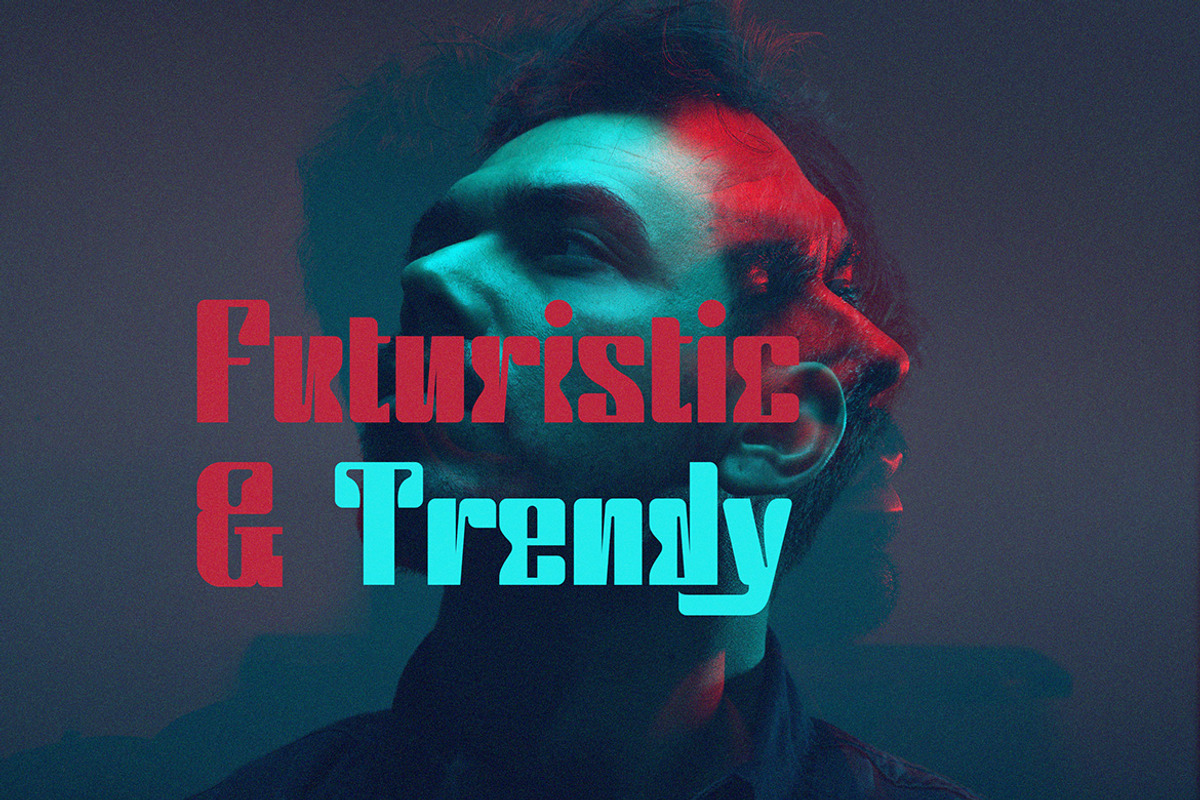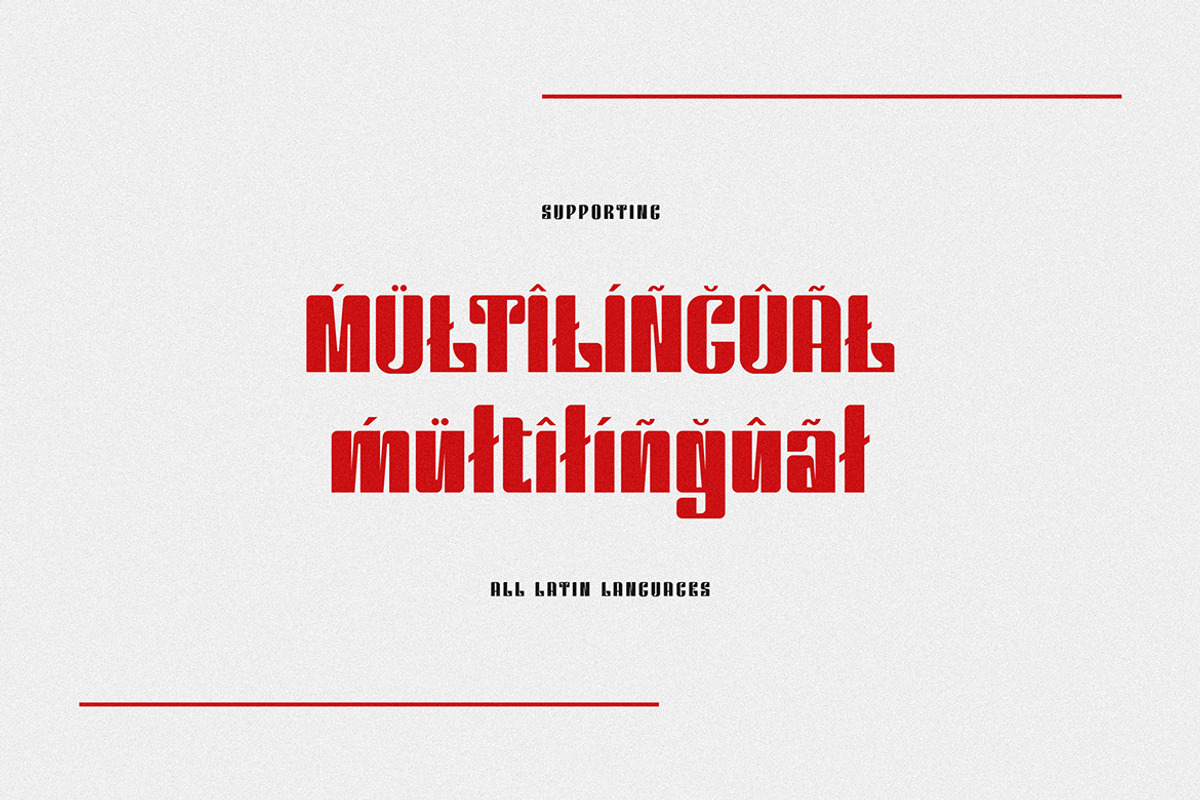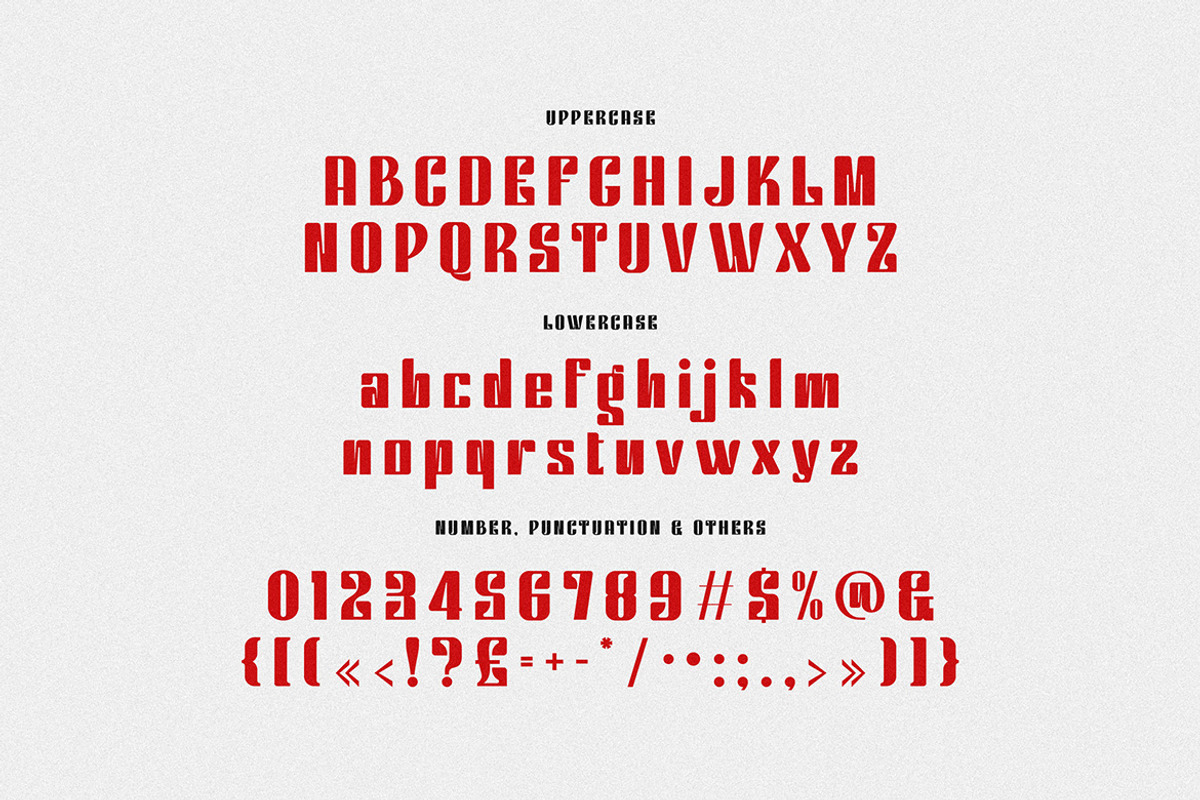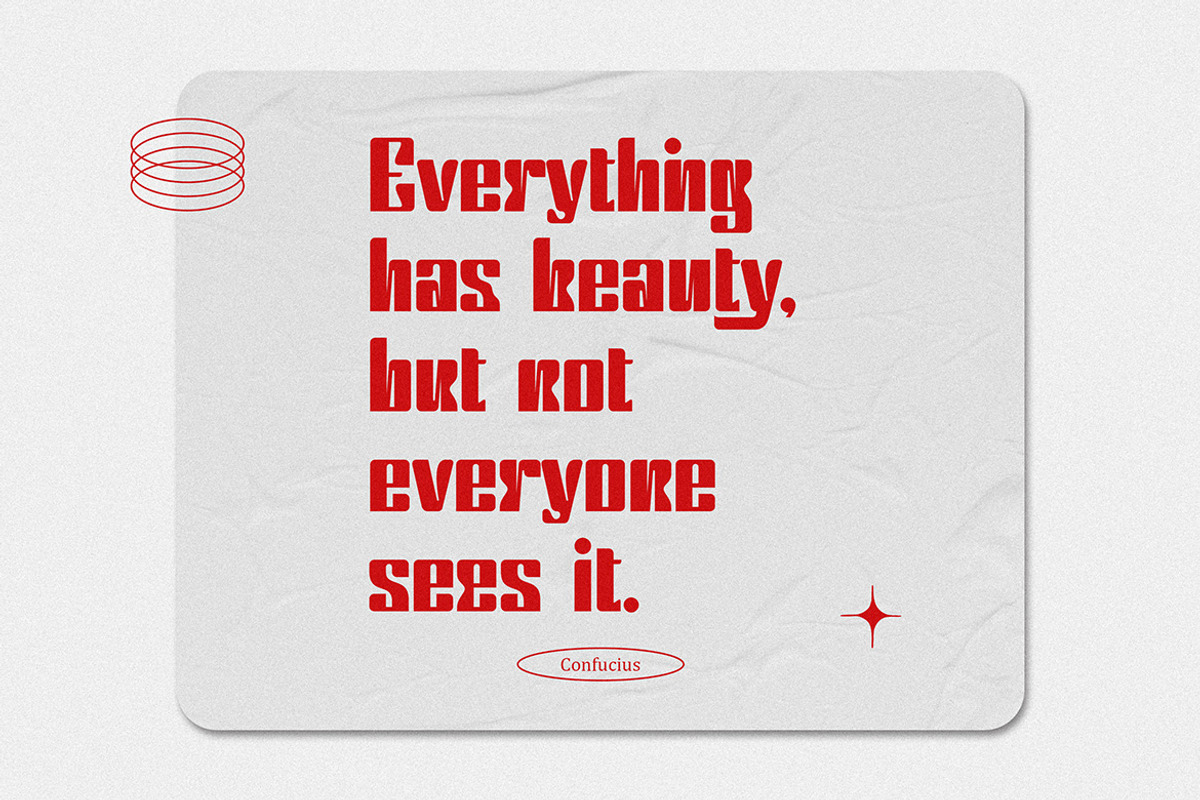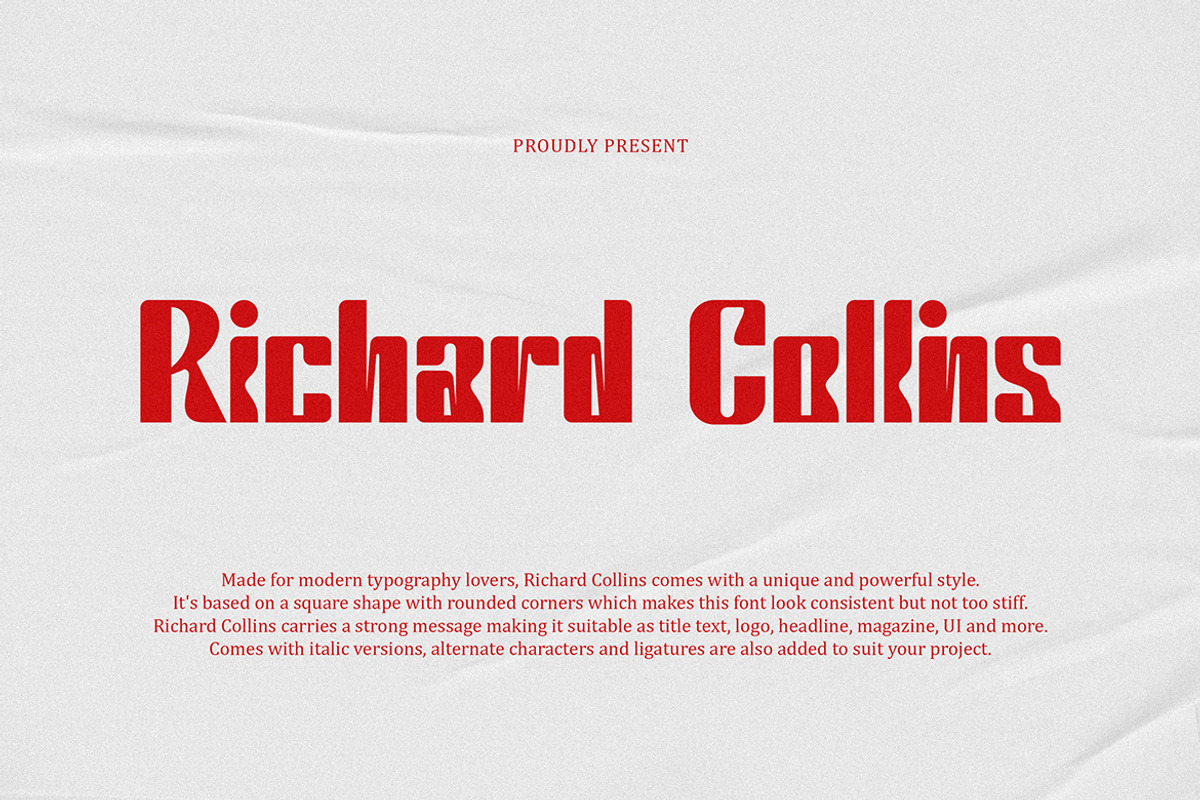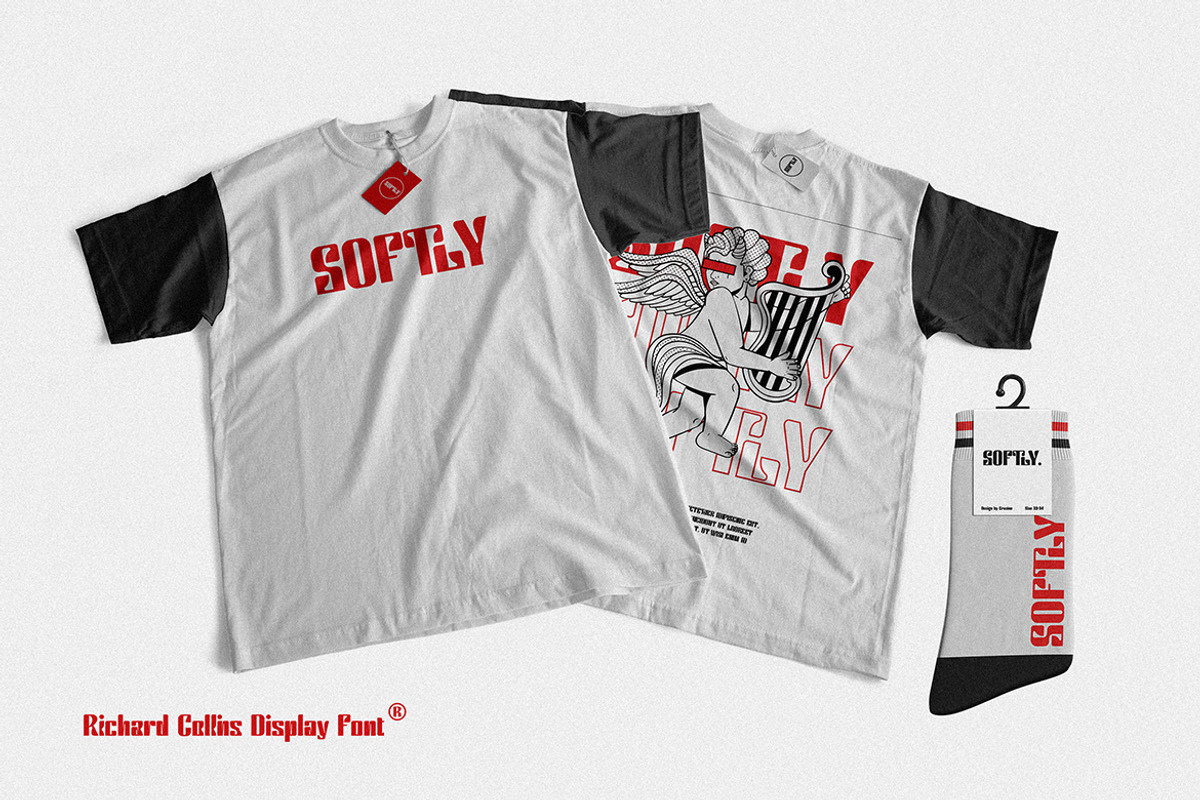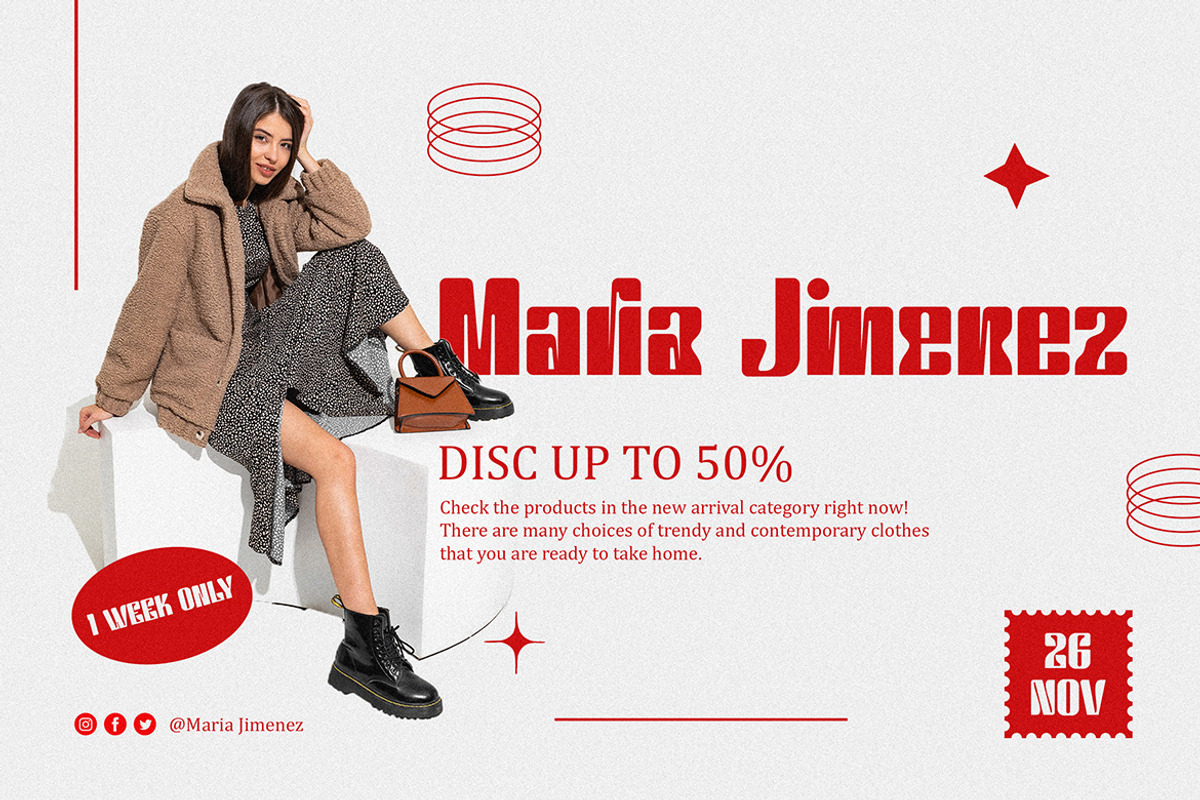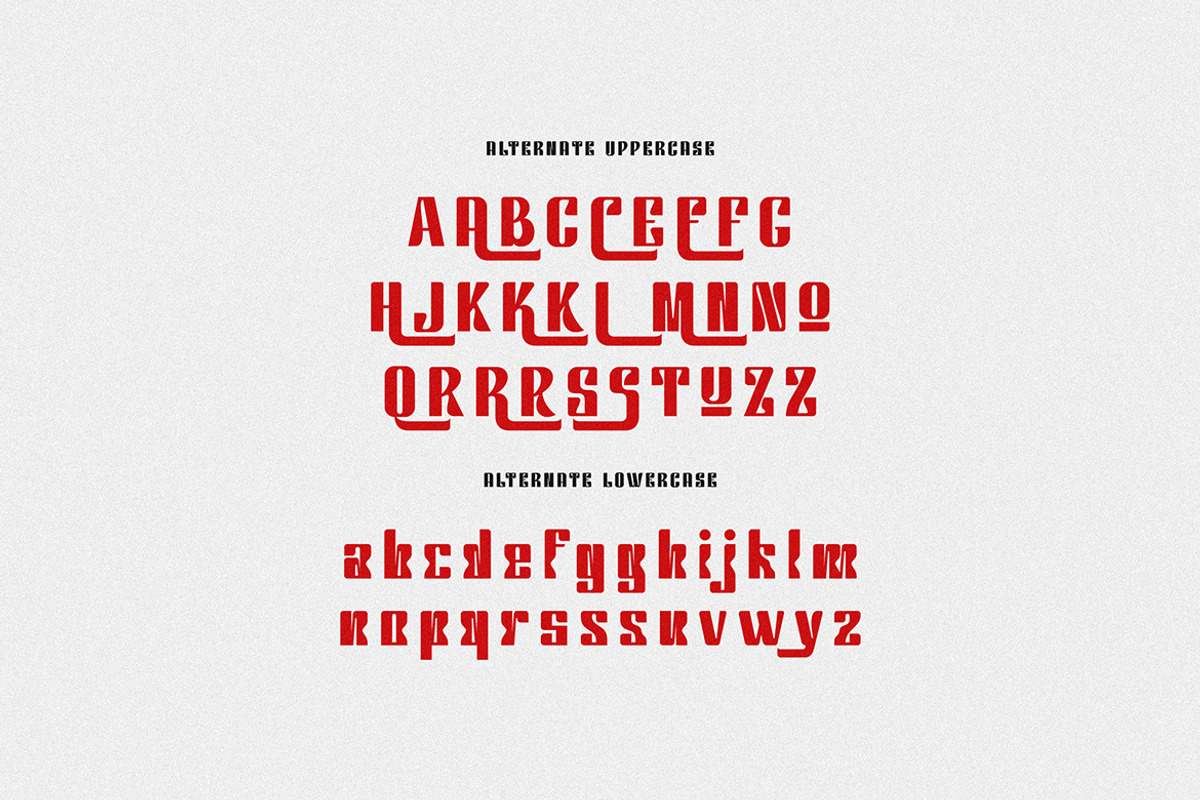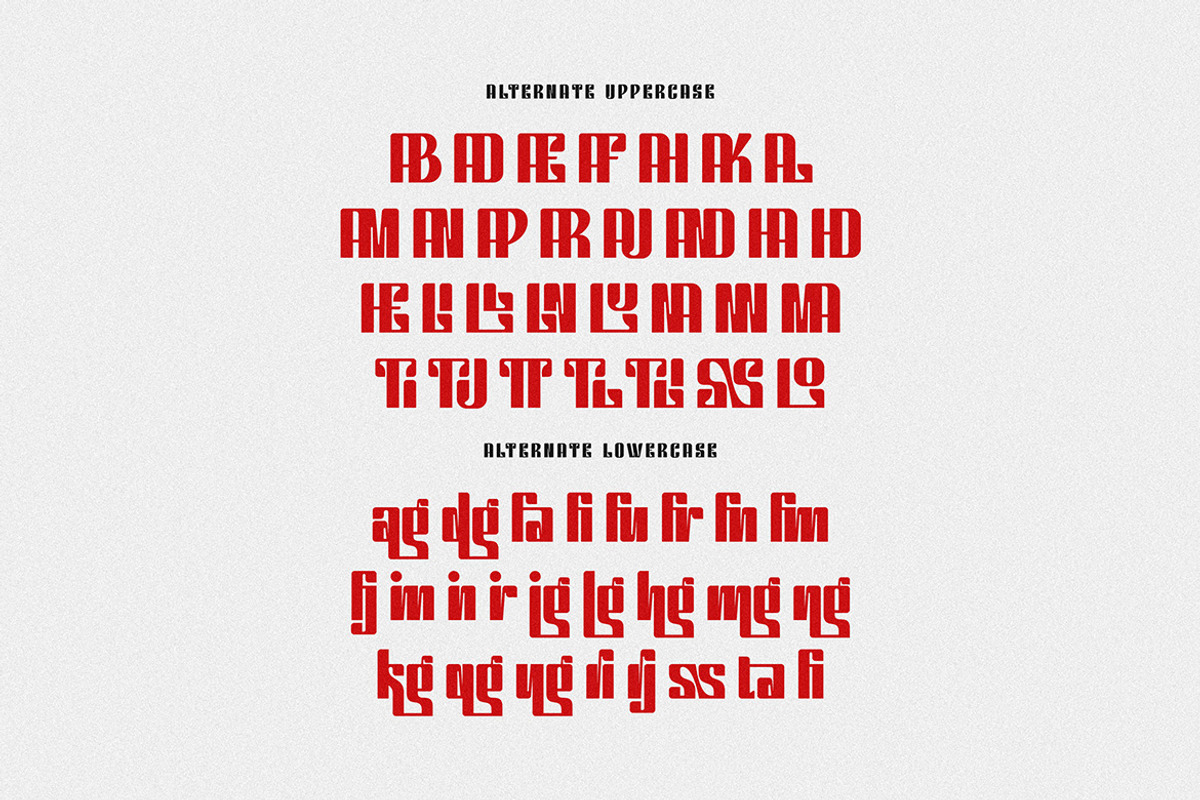
Richard Collins Condensed Sans
Modern, clean, sharp, sci-fi & futuristic style sans serif font for your new creative projects. Condensed and trendy style on Richard Collins font will be great for any branding project. Some alternates and ligatures will help you to create unique and original logo design or website header! Enjoy :)
- Alternate characters
- Great for modern branding projects!